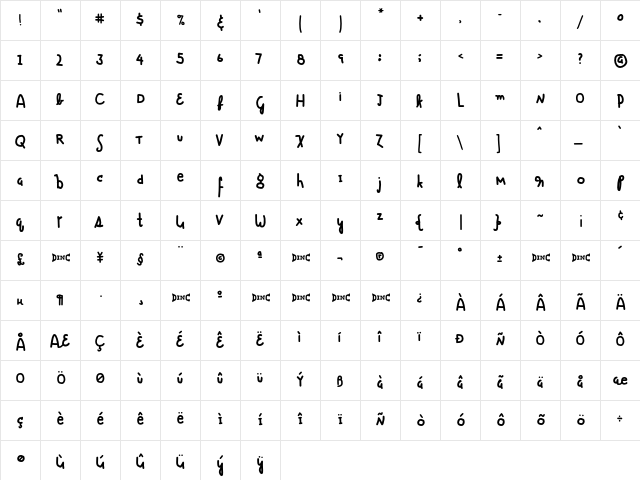
Alvin Regular
Design Context for Alvin Typeface
Alvin is a composed and adaptable typeface that performs quietly and consistently across a wide range of design contexts.